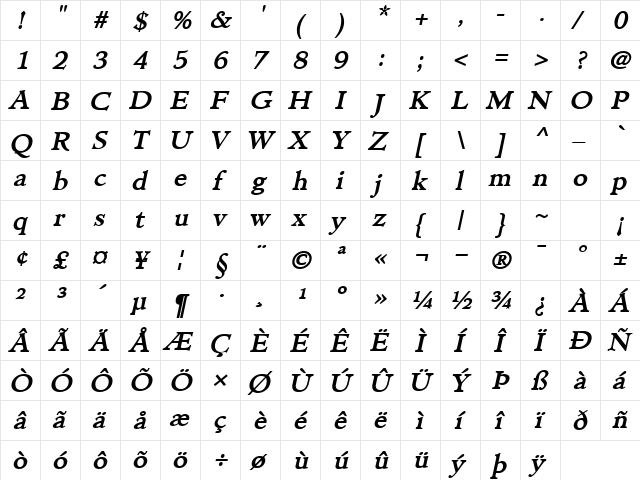
Pilgrim BoldItalic Font Preview
Design Context for Pilgrim Typeface
Pilgrim takes a measured approach to typography — its balanced proportions and neutral character make it a reliable workhorse for both digital and print work. The dynamic lean of this cut emphasises speed and emphasis in any layout. Its bold stroke weight gives it real presence on the page.
Pro Tip: Try Pilgrim for annotation and caption copy alongside an upright companion — the contrast in angle creates a dynamic but ordered typographic system.